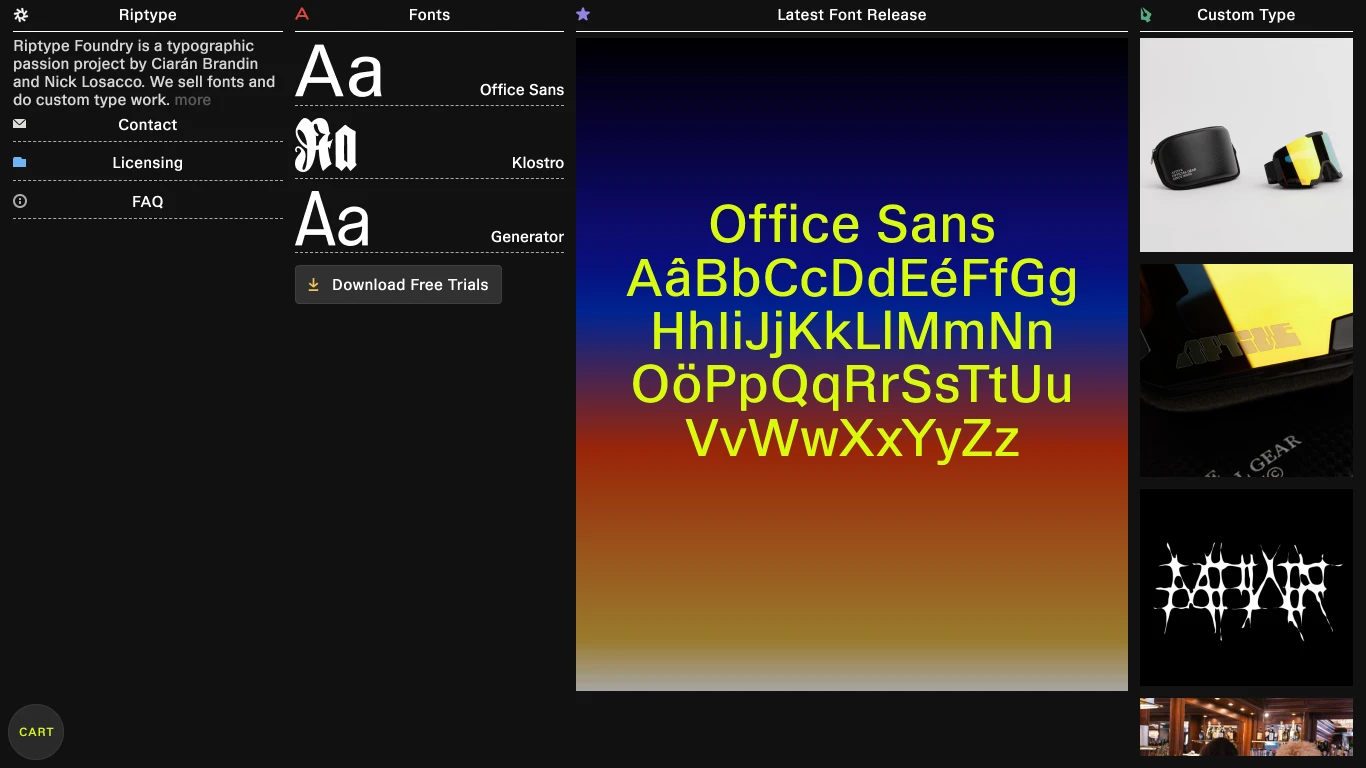
Montreal
2022
Riptype Foundry was launched in January 2022 by designer Nick Losacco (joined by Ciarán Brandin) as a typographic passion project. Known for retail releases like Generator—a functional yet characterful sans—and the tightly condensed blackletter Klostro, the studio specialises in both original and custom type work. Clients include design studios, agencies, and apparel brands (e.g., Klostro used on Kappa soccer jerseys by Burro Studio). What sets Riptype apart is its friendly, approachable ethos—offering full-feature trial fonts, student pricing, and simple licensing—all while releasing experimental, hybrid typefaces that bridge utility and personality.